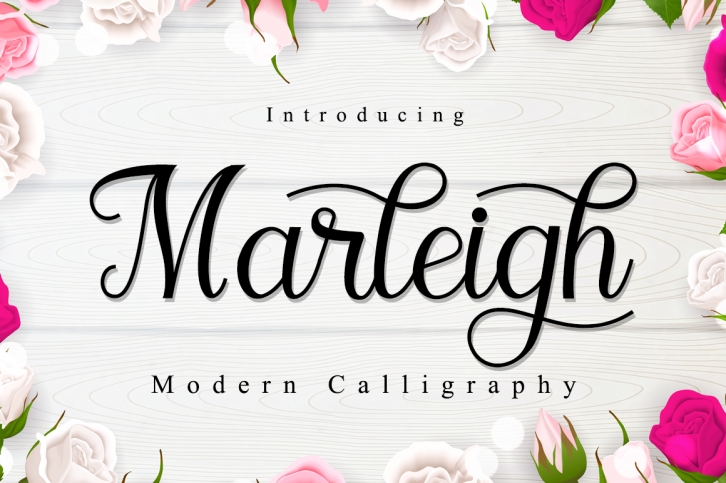
Marleigh is a trendy and unique font with an authentic style. It was designed by Manjalistudio and it's a great choice for creative people who need such a font. It was released on March 2, 2020 and the file size is 9.51 MB. Marleigh will add an organic vibe to any design idea!